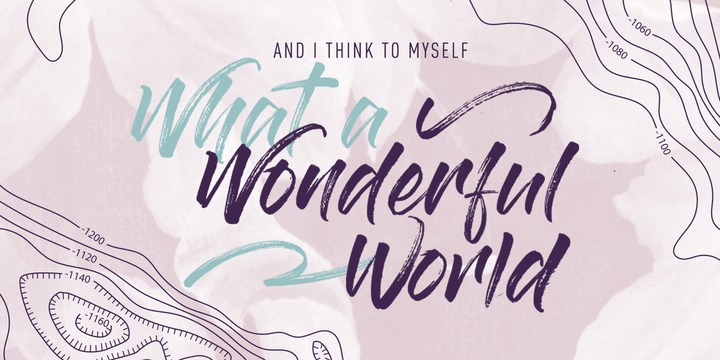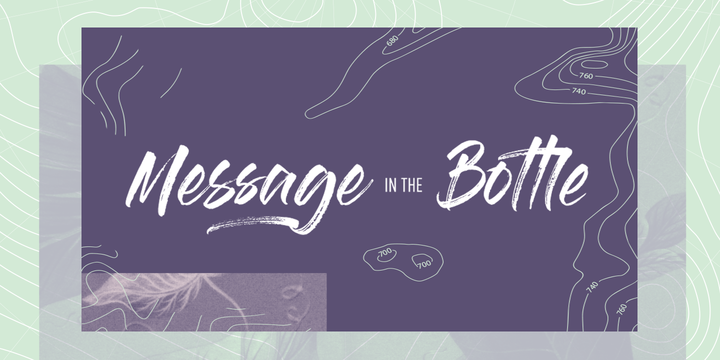
Gloss & Bloom is rough script font made with a brush pen. This font is made from the awesome work of Sean Delloro.
Enjoy this natural brush pen script font to create cool logotypes, posters or invitations.
The full commercial version comes with a complete set of alternate glyphes and a wide selection of underlining styles and splaters.